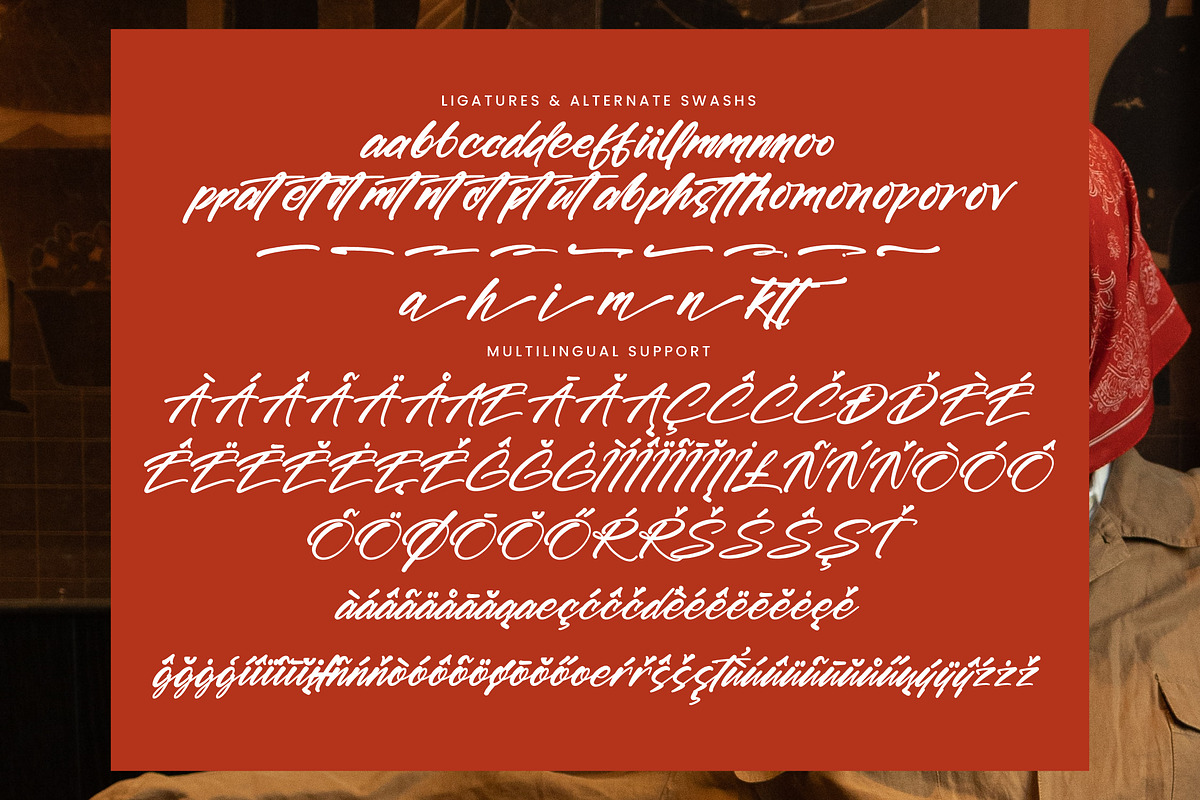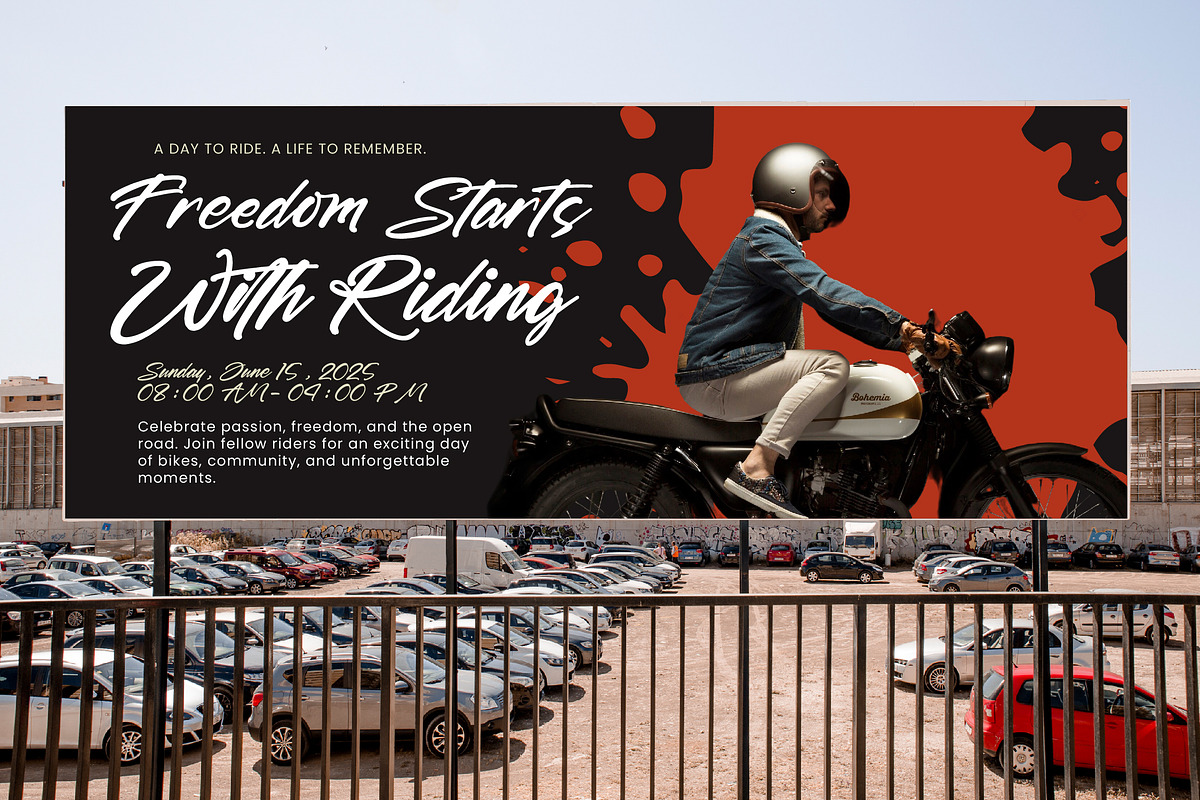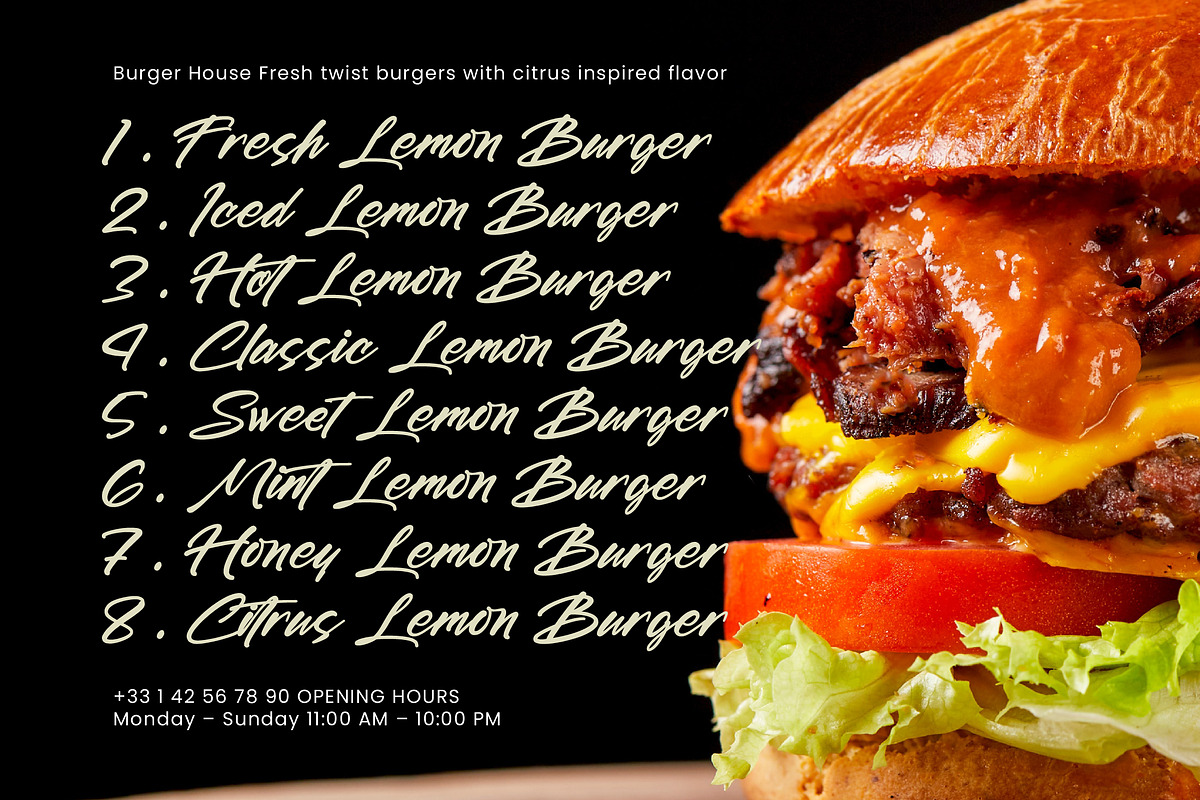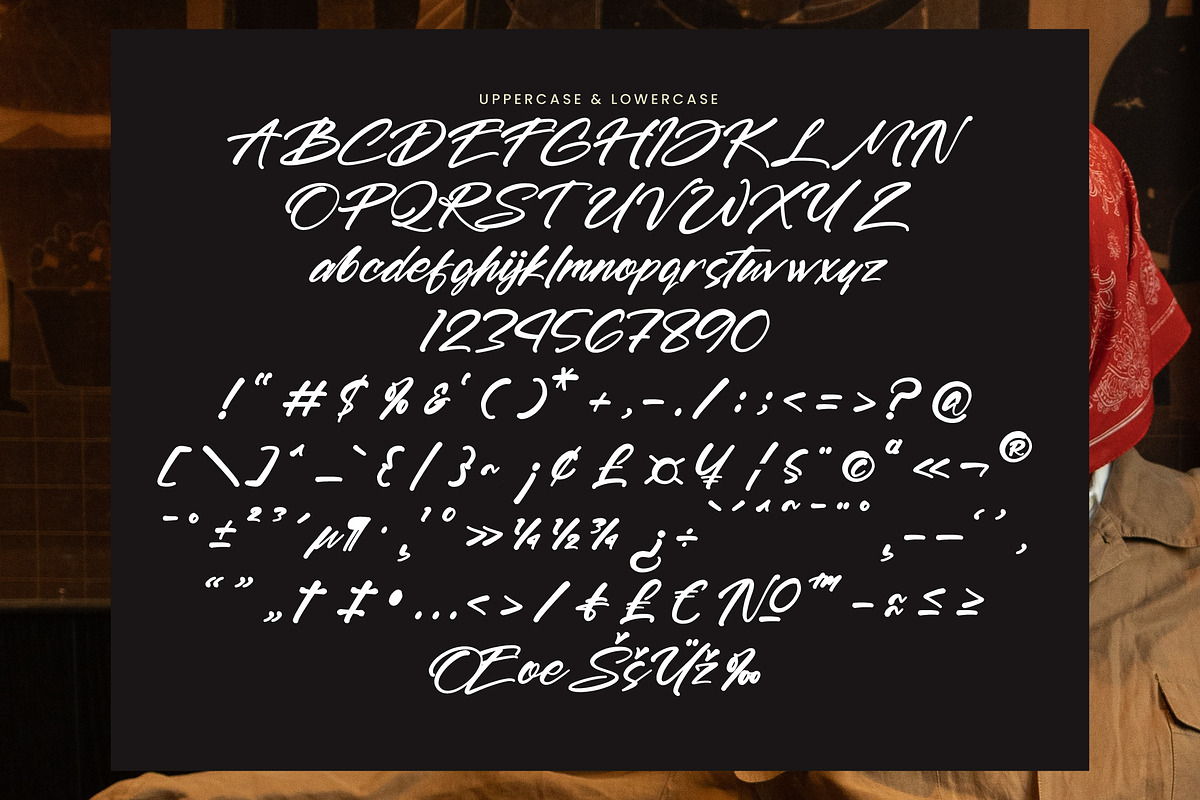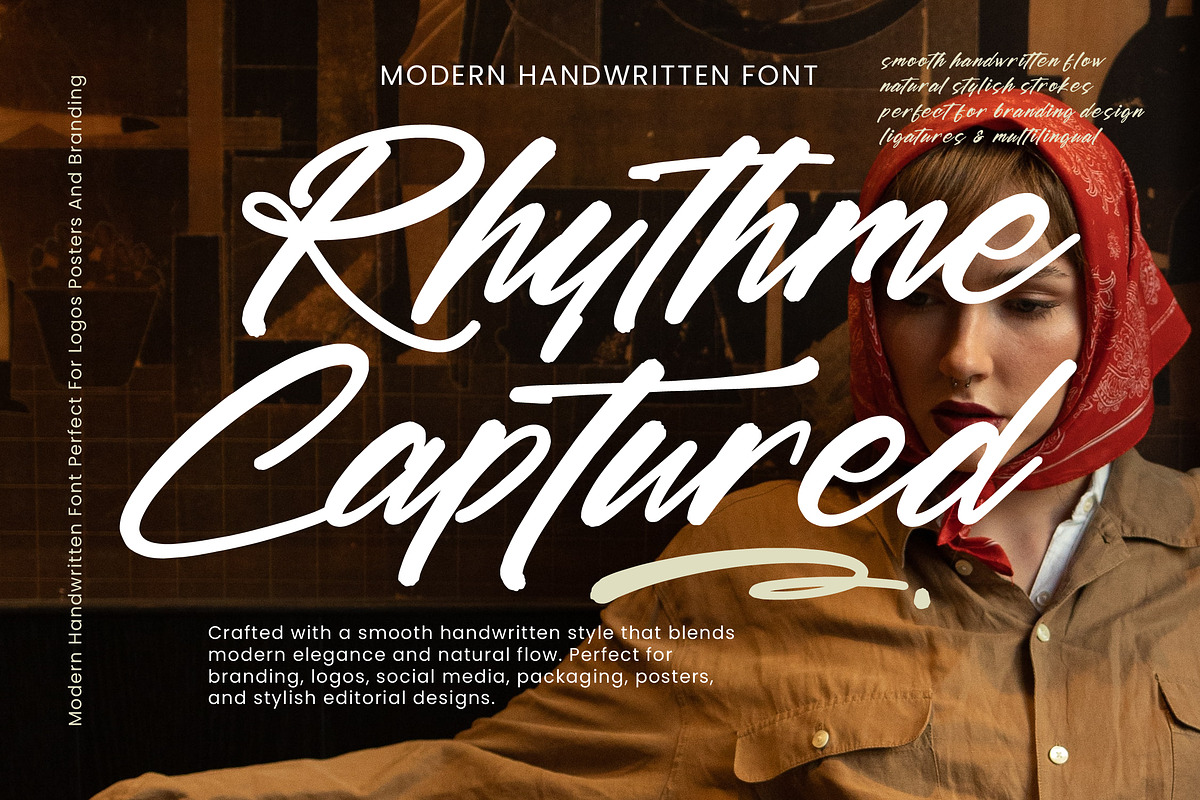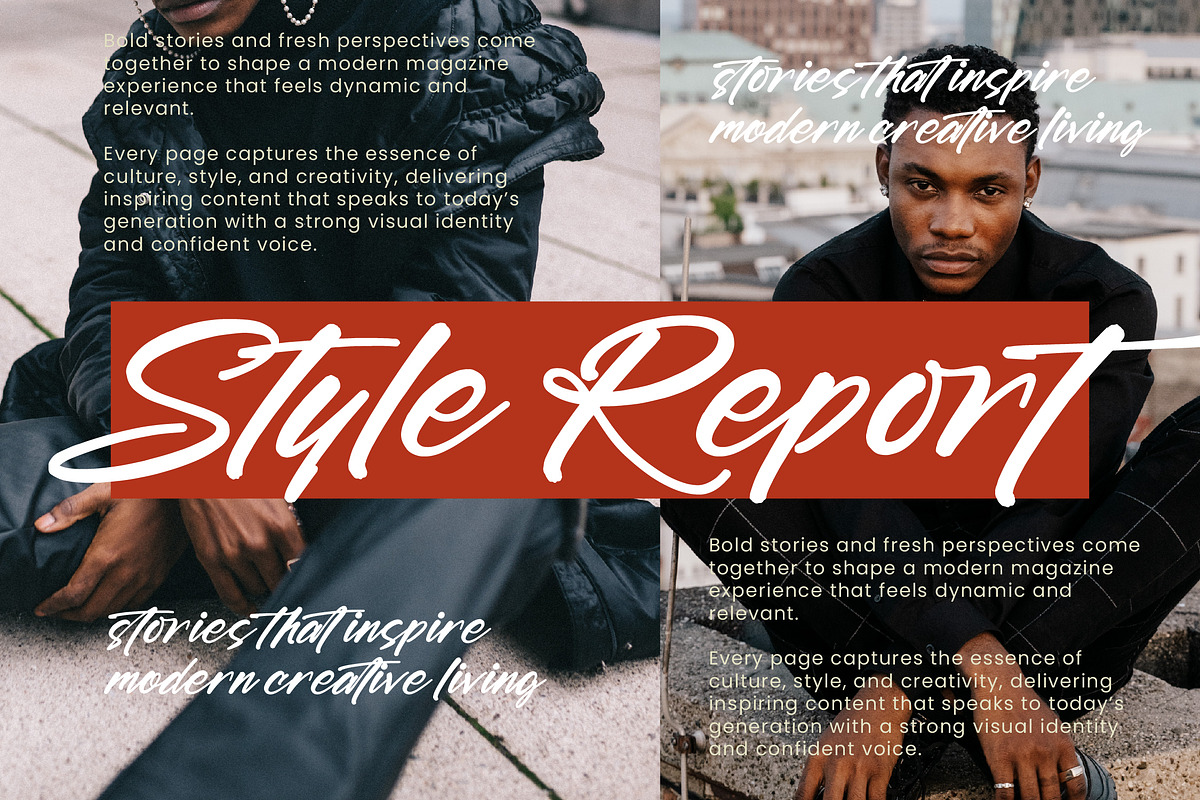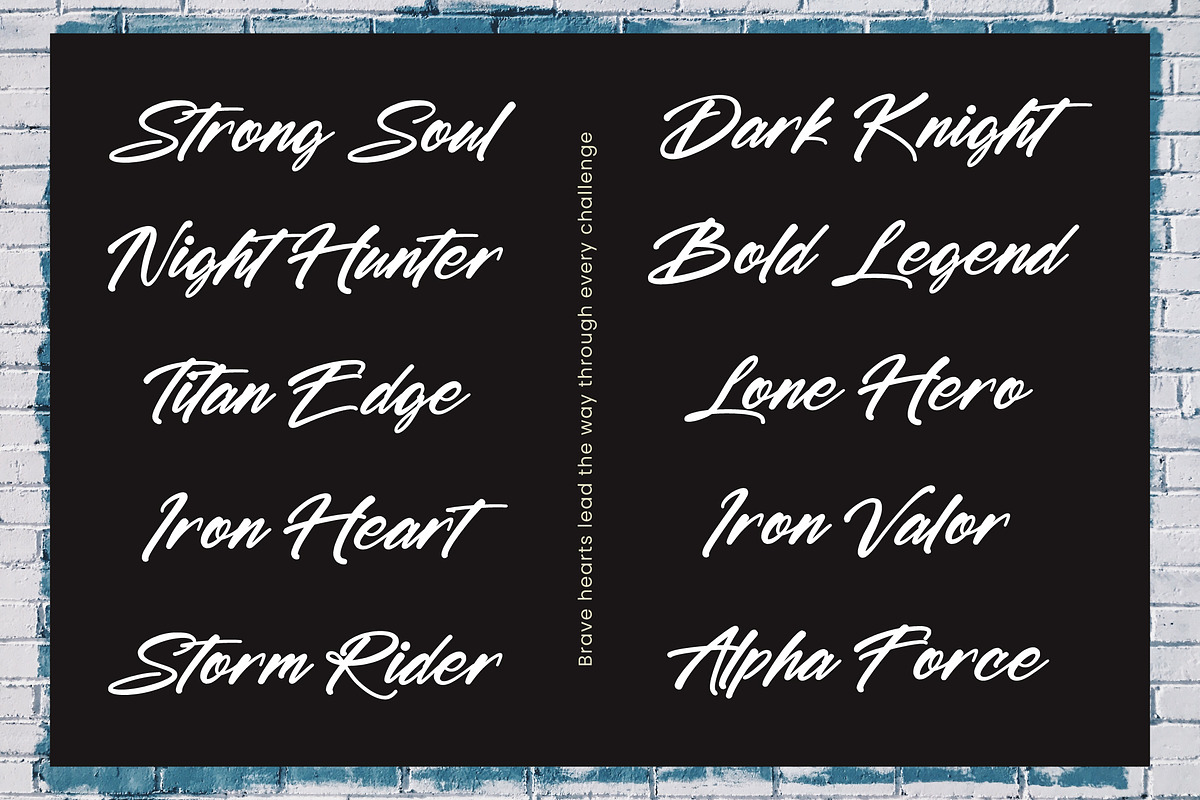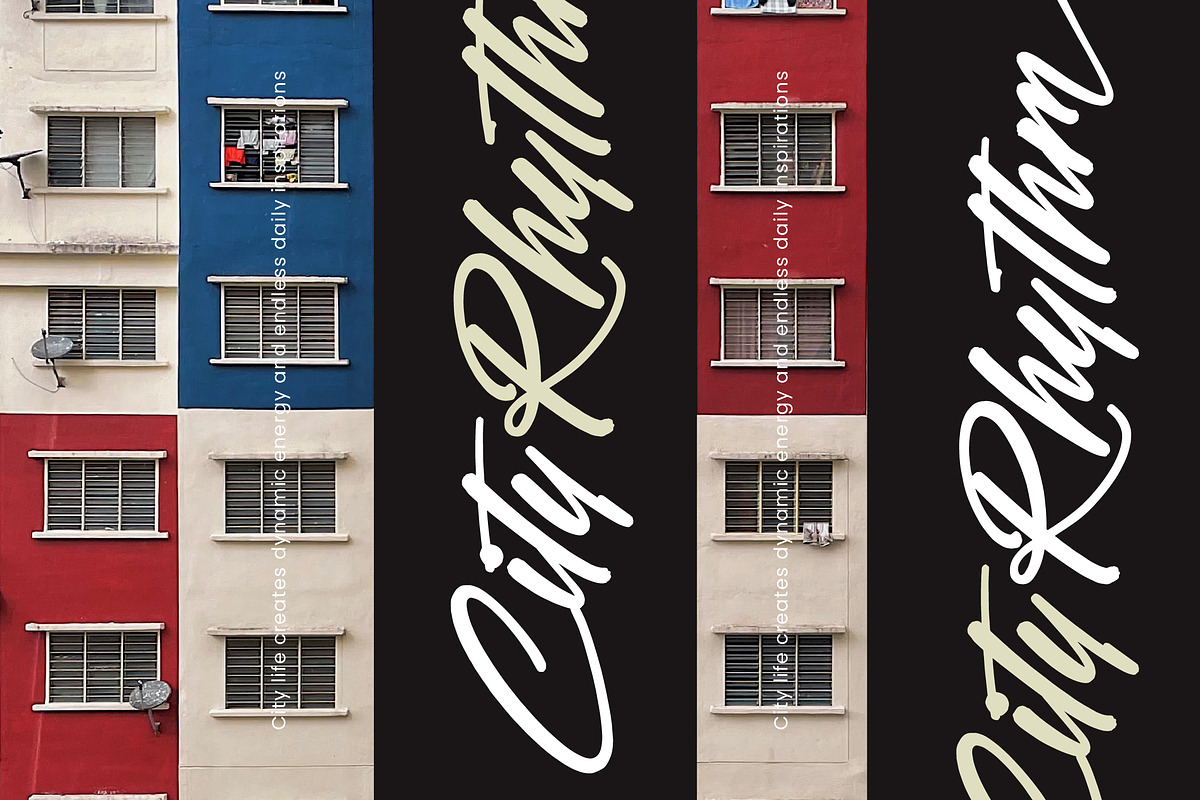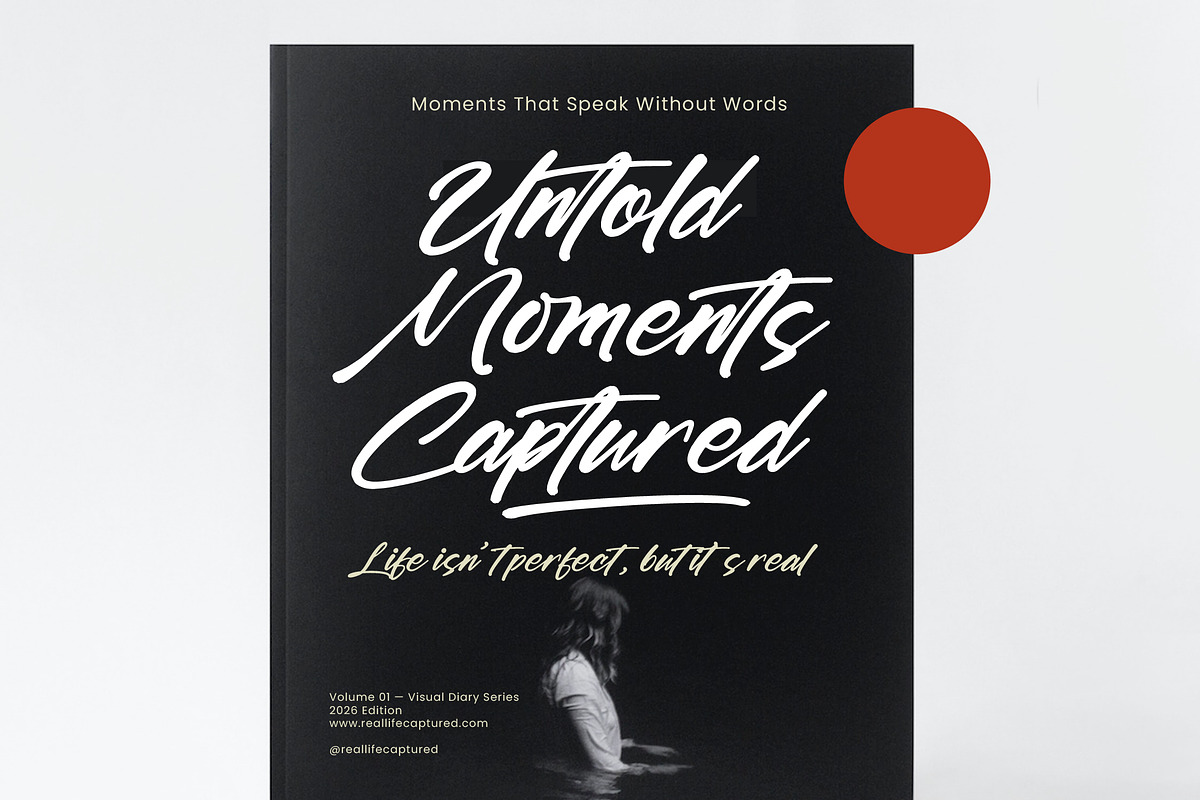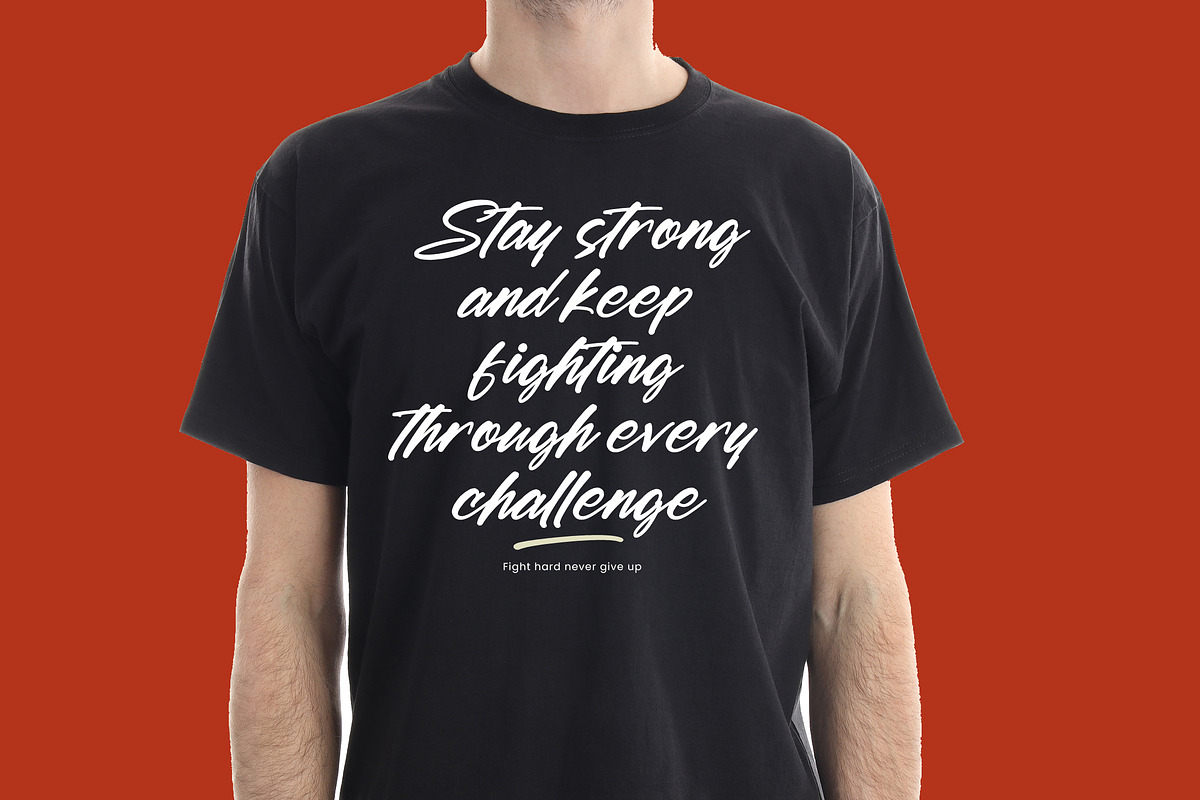
Rhythme Captured Modern Handwritten
Rhythme Captured – Modern Handwritten Font
Rhythme Captured is a modern handwritten font with an elegant and flowing style inspired by natural handwriting. Its smooth curves and refined rhythm create a sophisticated look that feels both personal and stylish.
Perfect for branding, wedding invitations, fashion editorials, social media content, packaging, logos, and lifestyle projects, this font brings a graceful and modern touch to any design.
Rhythme Captured balances beauty and readability, making it ideal for designers who want to create warm, aesthetic, and premium visuals with effortless charm.
Stylistic Alternates & Ligatures